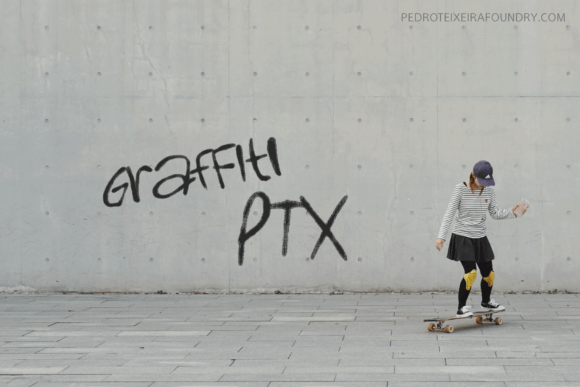
Street Art in Typography: The Story of Graffiti Ptx Font
Have you ever strolled through a vibrant city neighborhood, feeling the energy of the streets and the creativity that surrounds you? For many designers, it’s in these moments that inspiration strikes – and for some, it’s the humble graffiti that sparks the imagination. Graffiti Ptx Font is one such creation, born from the streets and inspired by the raw, unbridled energy of urban art.
This font is a nod to the old-school graffiti that adorns walls around the world – a celebration of the rebellious spirit and creative freedom that defines street art. By incorporating the style and character of these iconic texts, Graffiti Ptx Font offers designers a unique and eye-catching way to add some urban flair to their work.
- Unique Characteristics: Graffiti Ptx Font features a unique graffiti-style aesthetic with bold, expressive letterforms and intricate details.
Graffiti Ptx Font Review
Graffiti Ptx Font is a unique and eye-catching font that’s perfect for making a statement. ✨ It has a bold, graffiti-like aesthetic that’s reminiscent of street art, making it ideal for fashion brands, music labels, or any project that needs a touch of urban flair.
The font’s versatility is one of its strongest points. It can be used for headlines, titles, or even as a body font in certain situations. The font’s bold lines and rough texture add a layer of depth and visual interest that’s hard to find in other fonts.
While Graffiti Ptx Font is an excellent choice for certain projects, it may not be suitable for all situations. ⚠️ Here are a few potential drawbacks:
- Difficult to read in smaller sizes or at a distance
- May be distracting or overwhelming if used too extensively
- Limited language support, may not be suitable for projects requiring multiple languages
Graffiti Ptx Font is a great choice for designers looking to add a bold, edgy touch to their projects. While it may have some limitations, its unique aesthetic and versatility make it a valuable addition to any font library.
Getting the Most Out of Graffiti Ptx Font
Alternatives to Graffiti Ptx Font
Alternative 1: Bubblegum Sans
Bubblegum Sans is a fun, cursive font that is reminiscent of graffiti writing. It’s ideal for use in playful, informal designs, such as posters, flyers, and social media graphics.
Comparison to Graffiti Ptx Font: While Graffiti Ptx Font has a more aggressive, edgy feel, Bubblegum Sans is softer and more approachable. Bubblegum Sans is also more versatile, making it a great choice for a wider range of designs.
Alternative 2: Great Vibes
Great Vibes is a modern, handwritten font that is perfect for creating a sense of energy and movement. It’s great for use in headings, titles, and other areas where a bold, eye-catching font is needed.
Comparison to Graffiti Ptx Font: While Graffiti Ptx Font has a more traditional, graffiti-inspired feel, Great Vibes is more contemporary and experimental. Great Vibes is also more suitable for digital designs, such as website headings and social media titles.